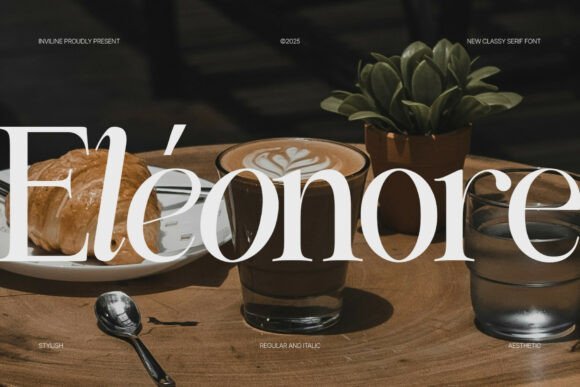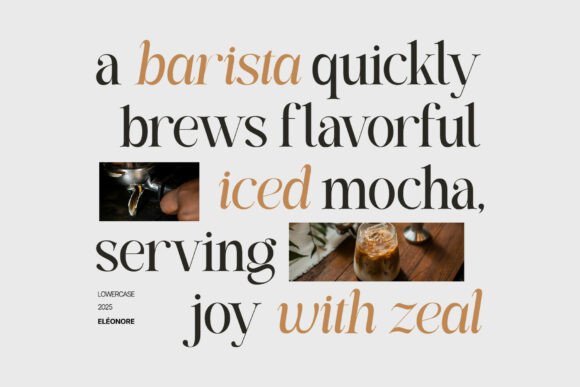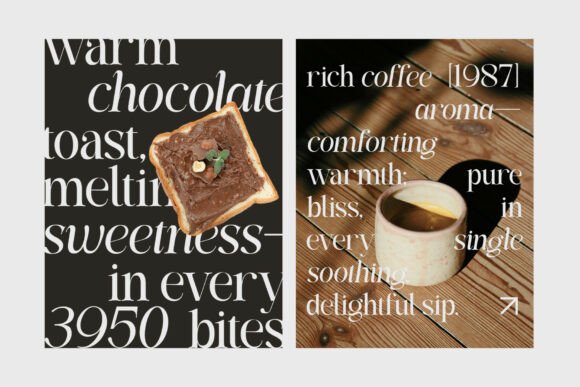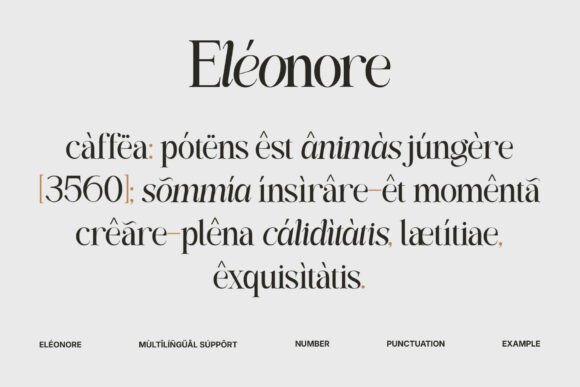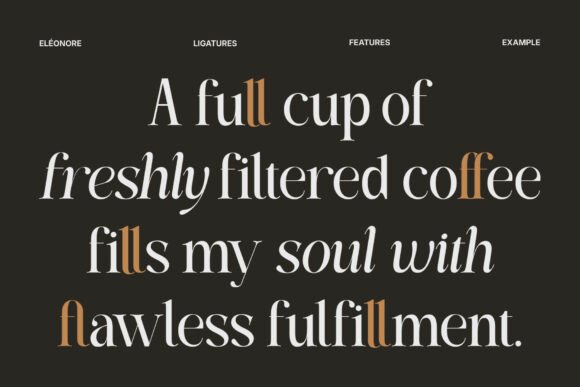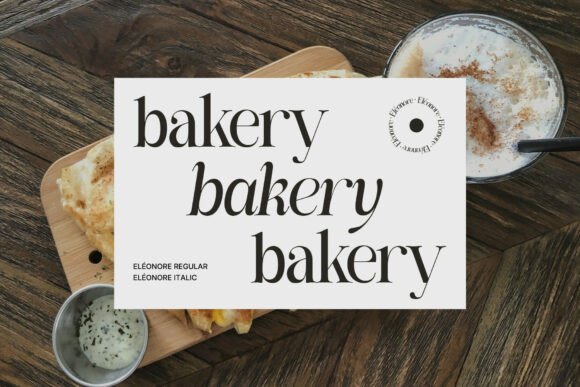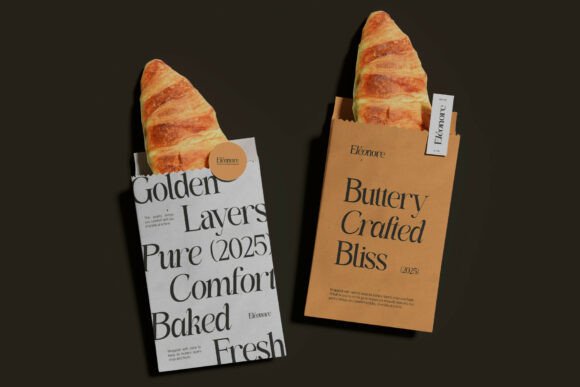
Unveiling the Elegance of Eléonore Regular Font
Have you ever stumbled upon a font that instantly elevates your design from good to great? For designers, it’s that ‘aha’ moment when everything falls into place – the typography, the color palette, and the overall aesthetic. It’s a feeling that’s hard to replicate, but one that leaves a lasting impression. For those seeking that perfect blend of sophistication and elegance, the Eléonore Regular Font is an excellent choice.
This classy serif font is designed to make a statement, with its high contrast and refined lines perfect for editorial layouts, branding, and premium packaging. Available in both Regular and Italic styles, the Eléonore Regular Font brings a touch of sophistication to any design, making it an ideal choice for fashion-forward projects and refined aesthetics.
- Unique Characteristics: Elegant and sophisticated design, perfect for formal and professional applications
Eleonore Regular Font Review
Overall, I think the Eleonore Regular Font is a lovely, elegant choice for any project. ✨ It’s got a classic, timeless feel that works well in a variety of contexts, from headings to body text. The font’s rounded edges and subtle flair at the ends of the strokes give it a soft, approachable quality that’s hard to resist.
One of the things that really stands out about the Eleonore Regular Font is its legibility. ✨ It’s incredibly easy to read, even at smaller sizes, which makes it a great choice for digital projects where text needs to be displayed on a variety of devices. Additionally, the font’s high x-height makes it a great choice for body text, where clarity and readability are key.
While the Eleonore Regular Font is a solid choice for many projects, there are a few limitations to be aware of. ⚠️ One of the main issues is that the font can feel a bit generic, which may make it harder to stand out in crowded markets. Additionally, the font’s subtlety can sometimes make it difficult to notice at smaller sizes.
In conclusion, I think the Eleonore Regular Font is a great choice for anyone looking for a classic, elegant font. While it may not be the most unique or attention-grabbing choice, it’s a solid, reliable option that’s sure to please.
- Classic, timeless feel
- Legible at small sizes
- High x-height for body text
- Subtle flair at the ends of the strokes
Tips for Getting the Most Out of Eleonore Regular Font
Use the Eleonore Regular font for body text and headings to create a clean and elegant design. Pair it with bold fonts for emphasis and contrast.
The Eleonore Regular font is ideal for:
- Designing business cards and marketing materials
- Creating elegant wedding invitations and stationery
- Developing a professional and modern website